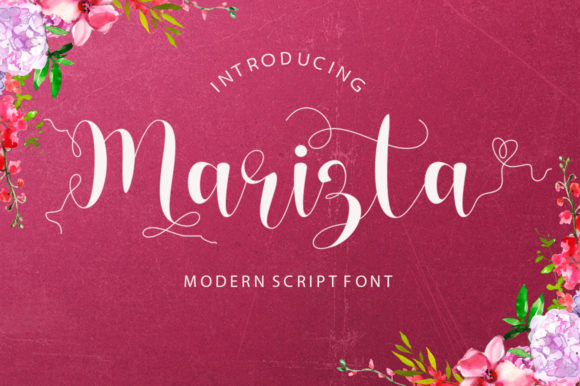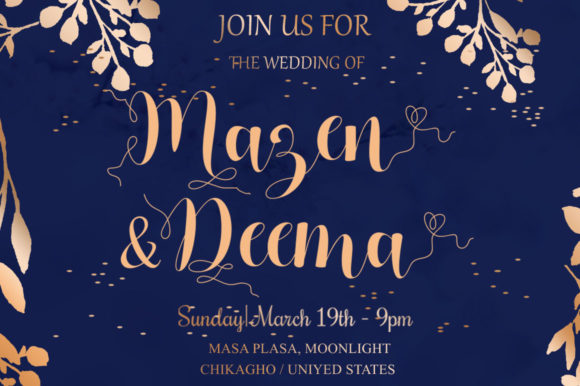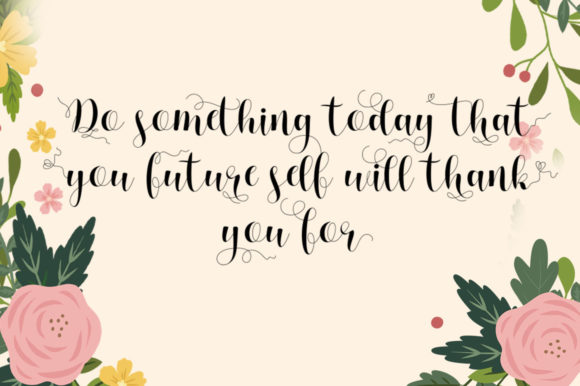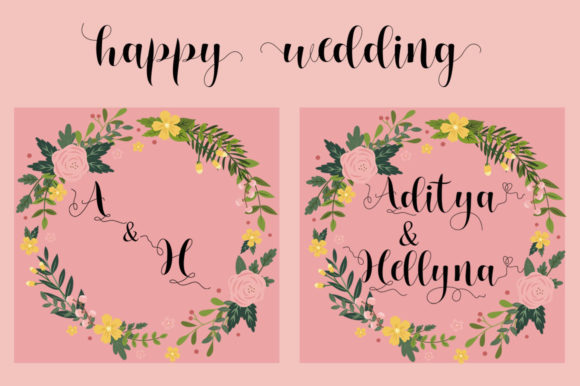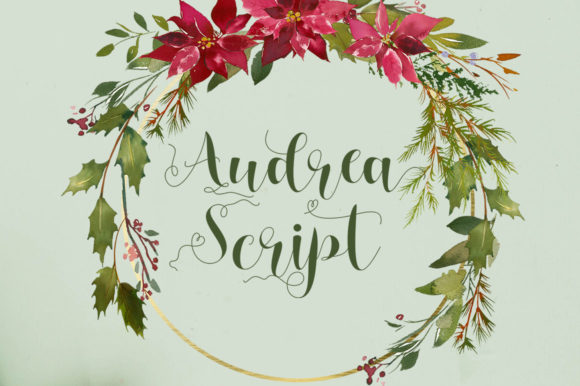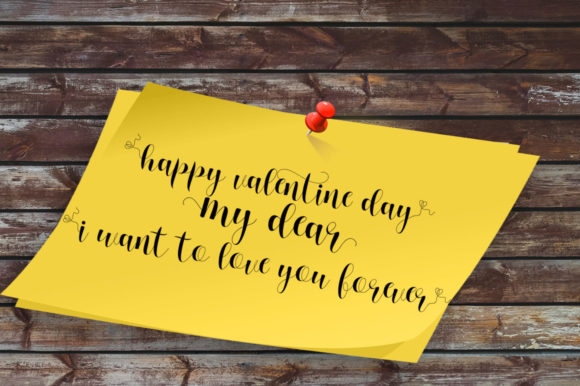
About Marizta Font
Marizta is a beautiful and romantic handwritten font with an incredibly friendly feel. It features gorgeous swashes and ligatures that make this script incredibly versatile. Whether you’re looking for fonts for Instagram or calligraphy scripts for DIY projects, Marizta will turn any creative idea into a true piece of art!